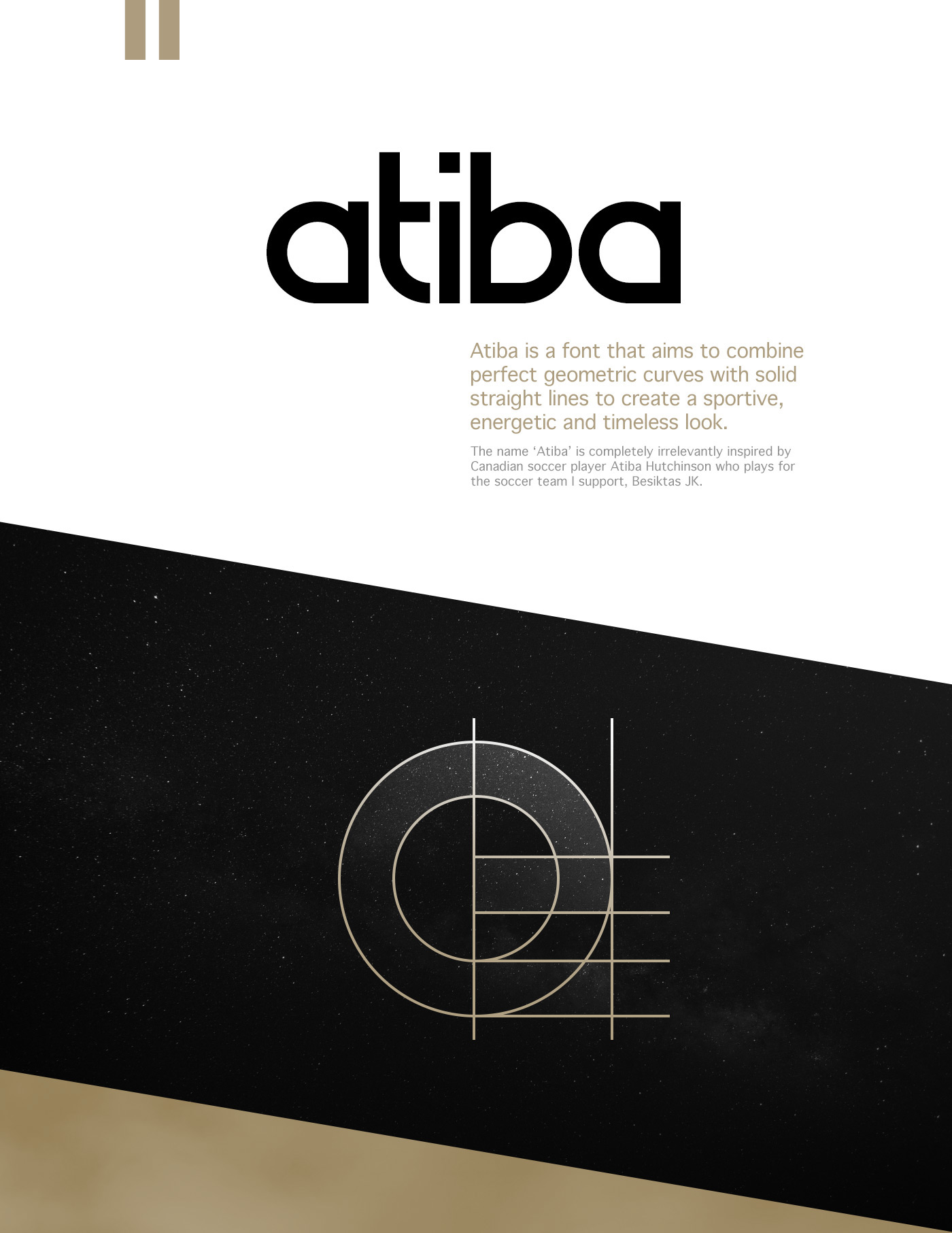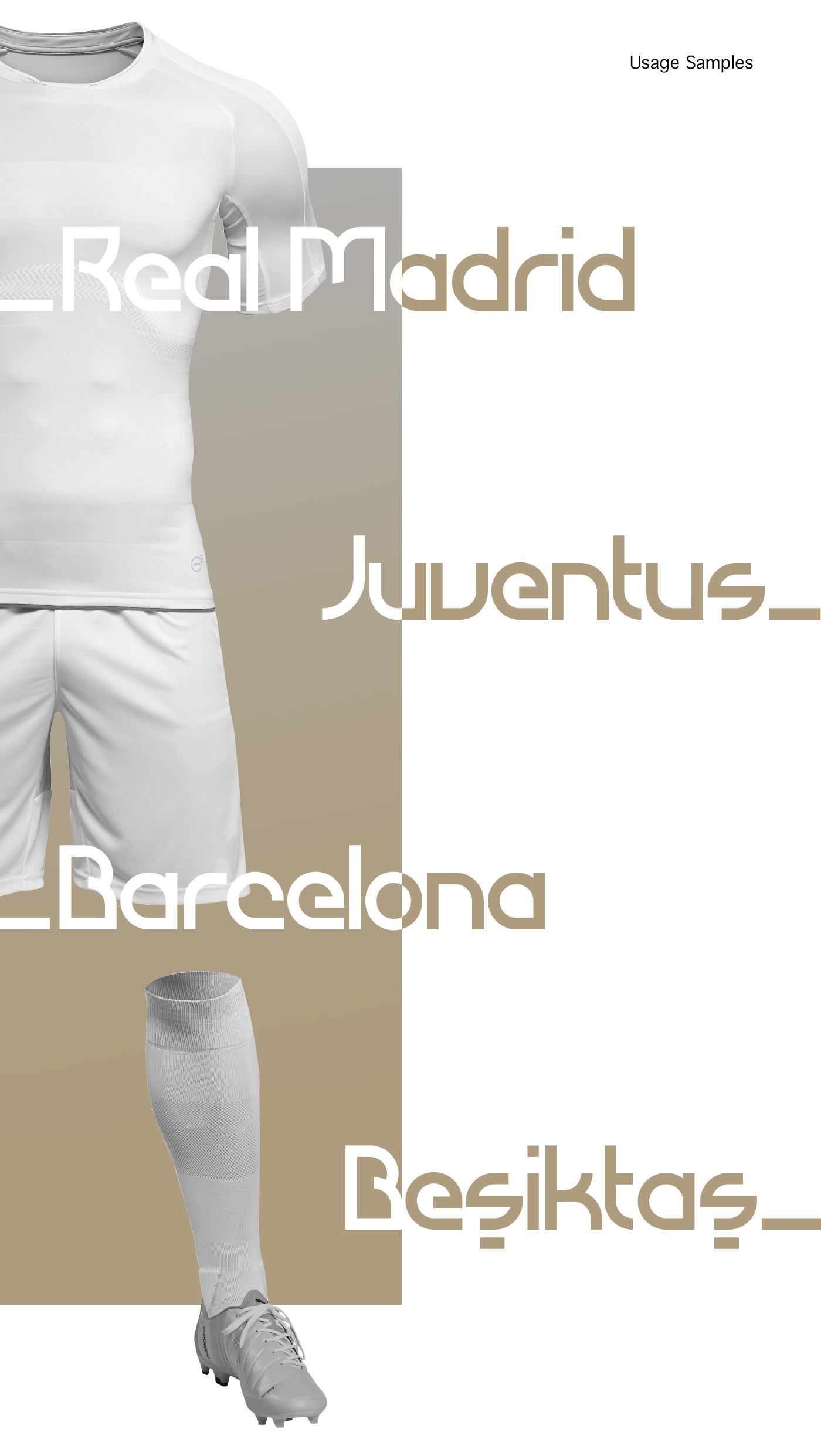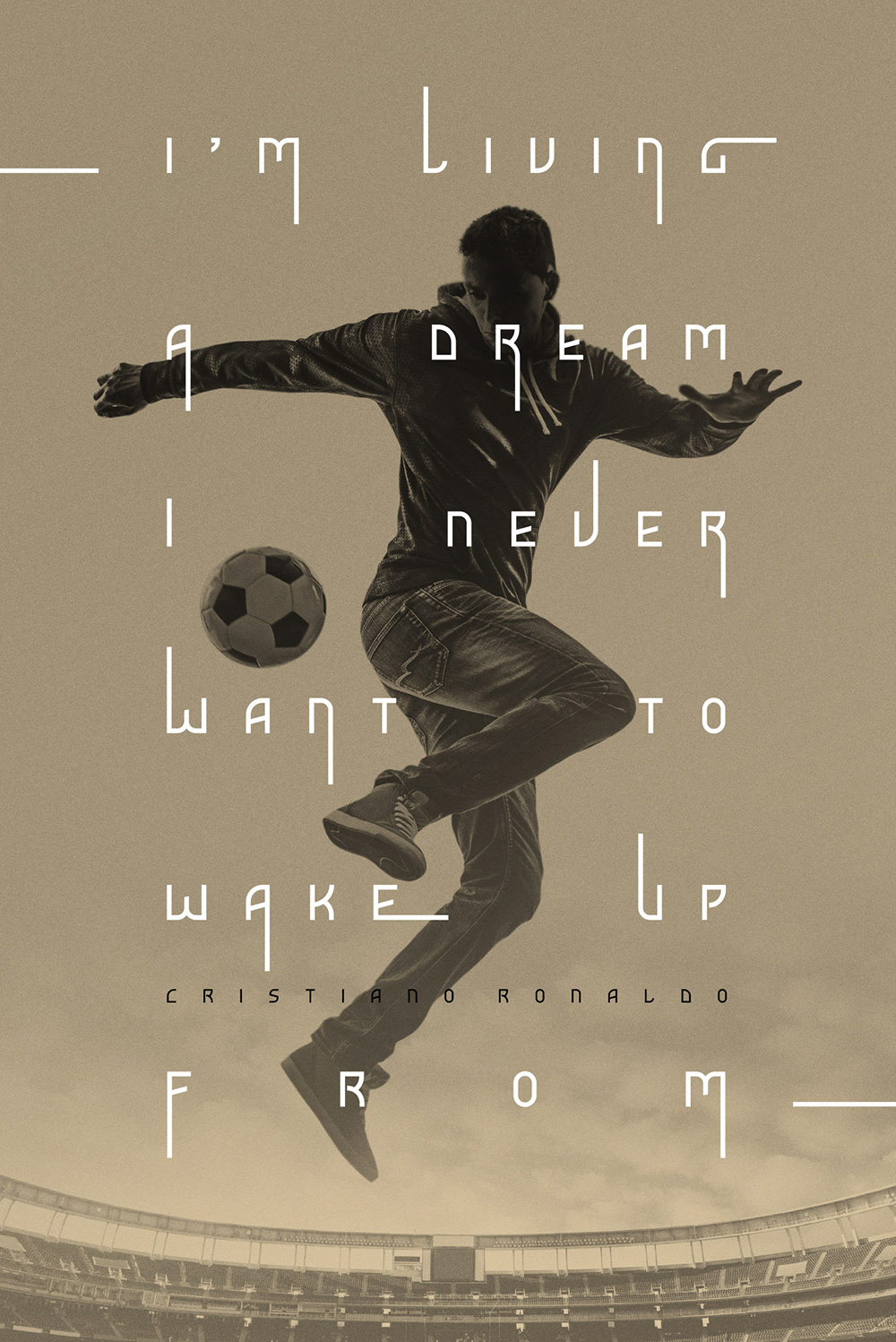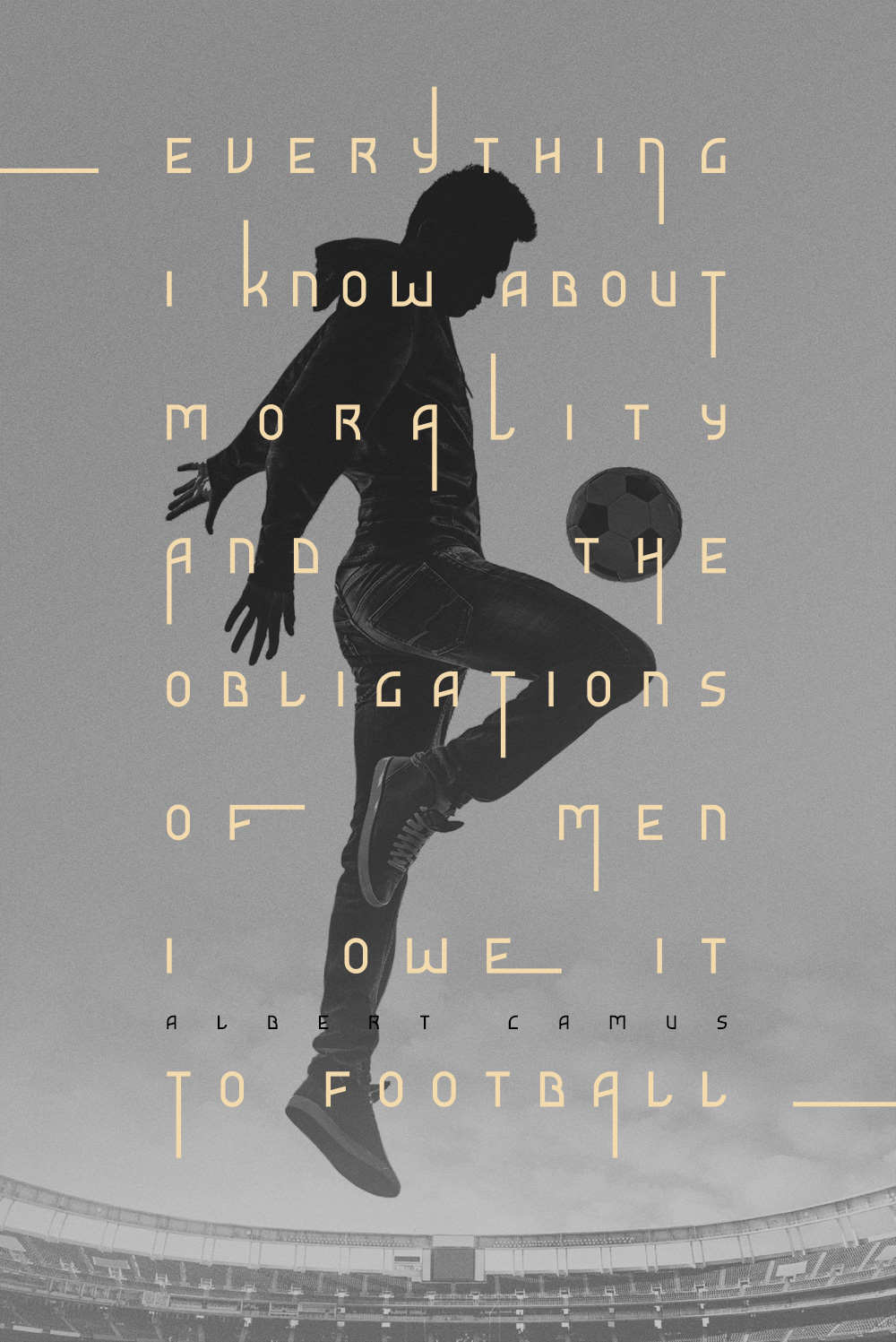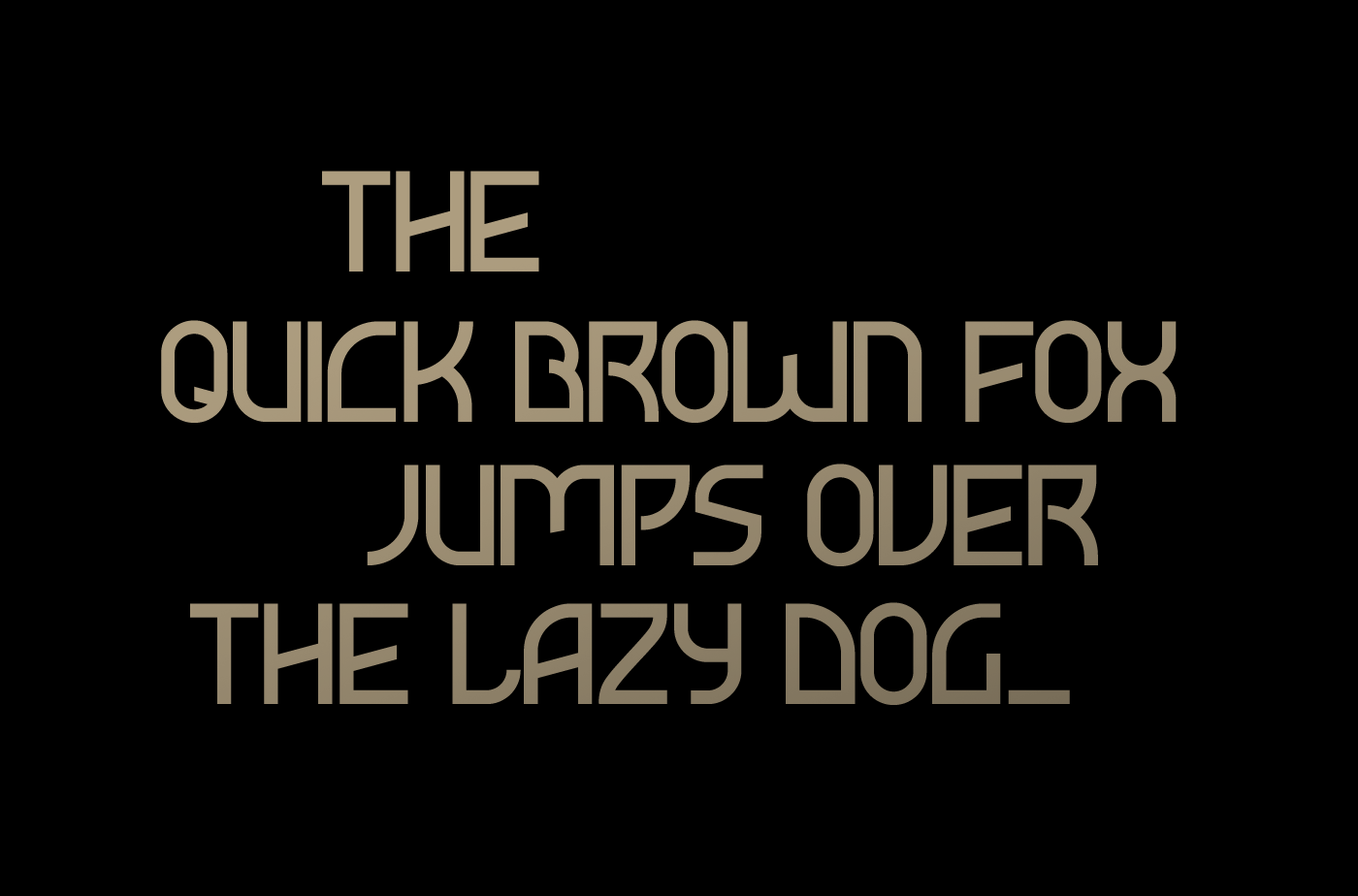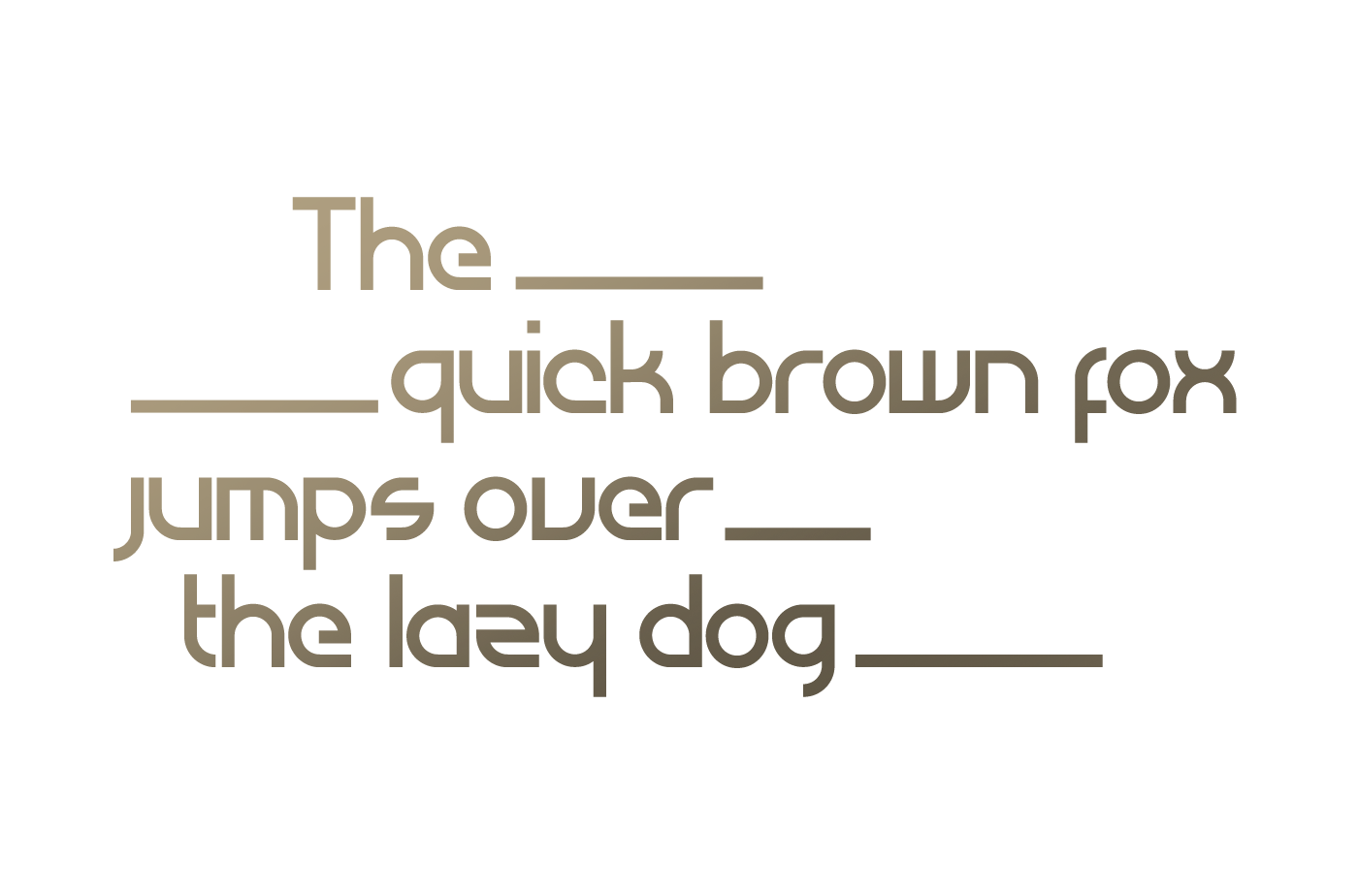
Designed by from Ozan Karakoc from Los Angeles, Atiba is a free font that aims to combine perfect geometric curves with solid straight lines. Use Atiba in your personal and commercial work to create a sportive, energetic and timeless look!